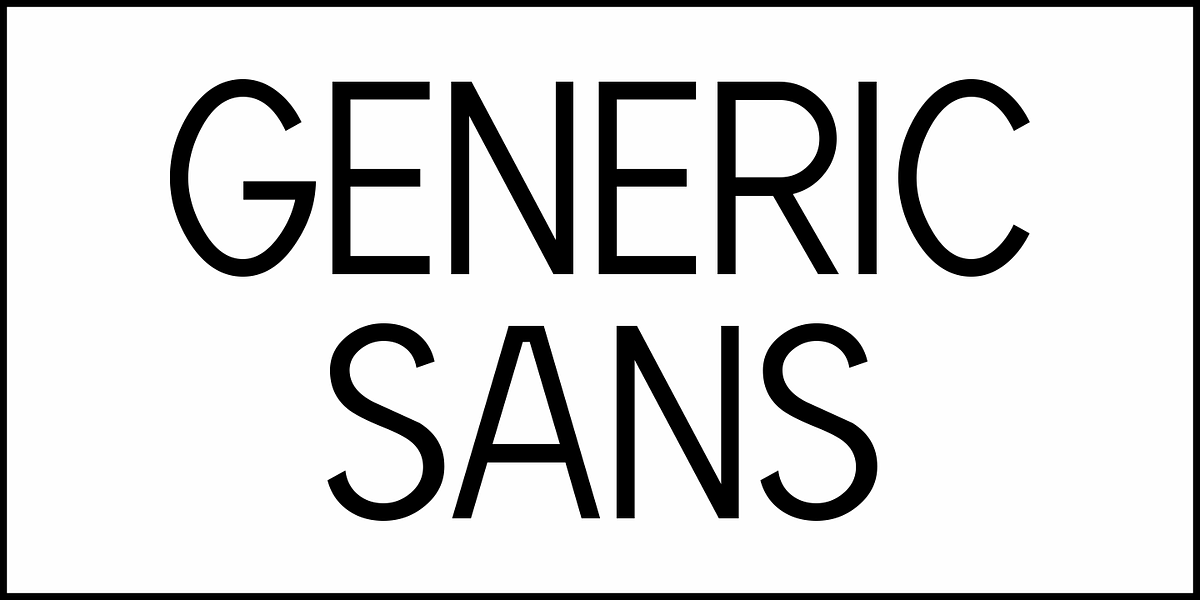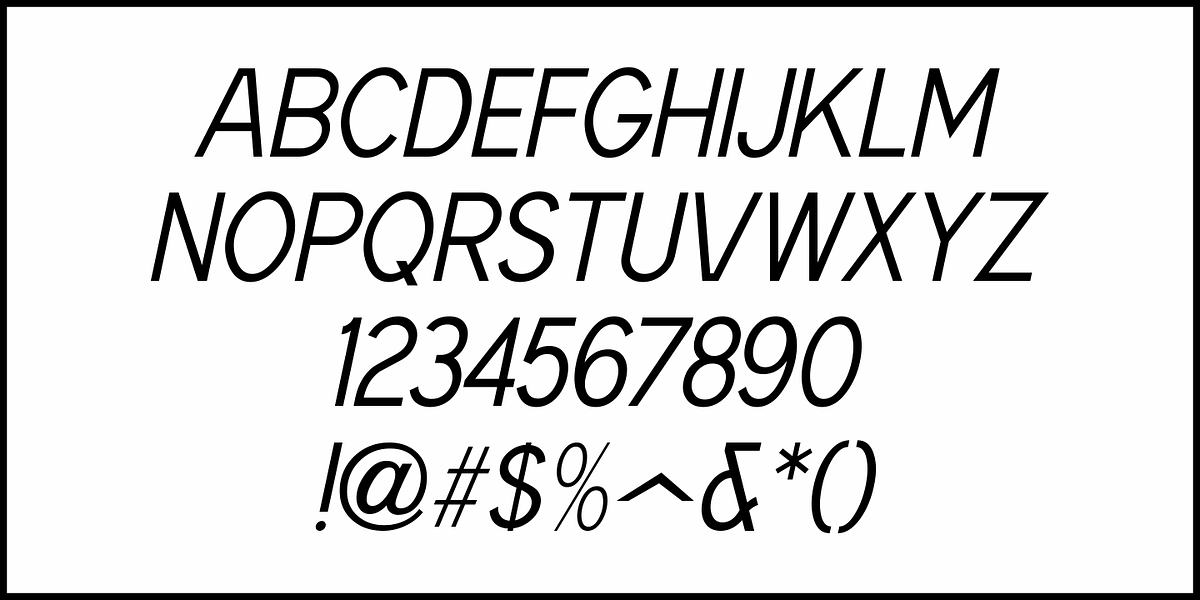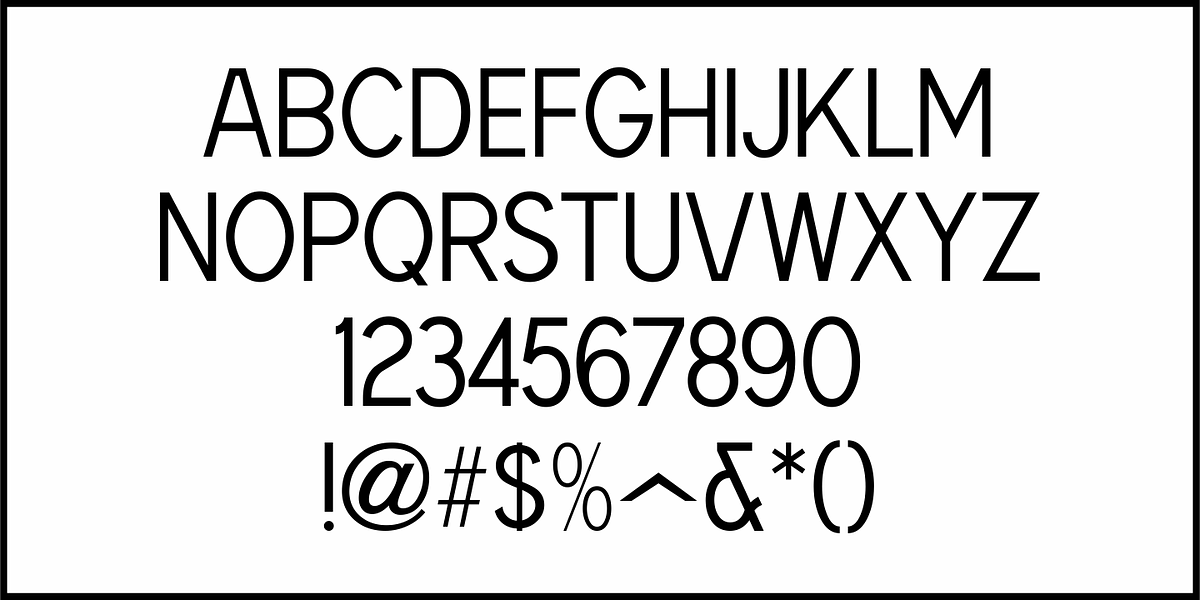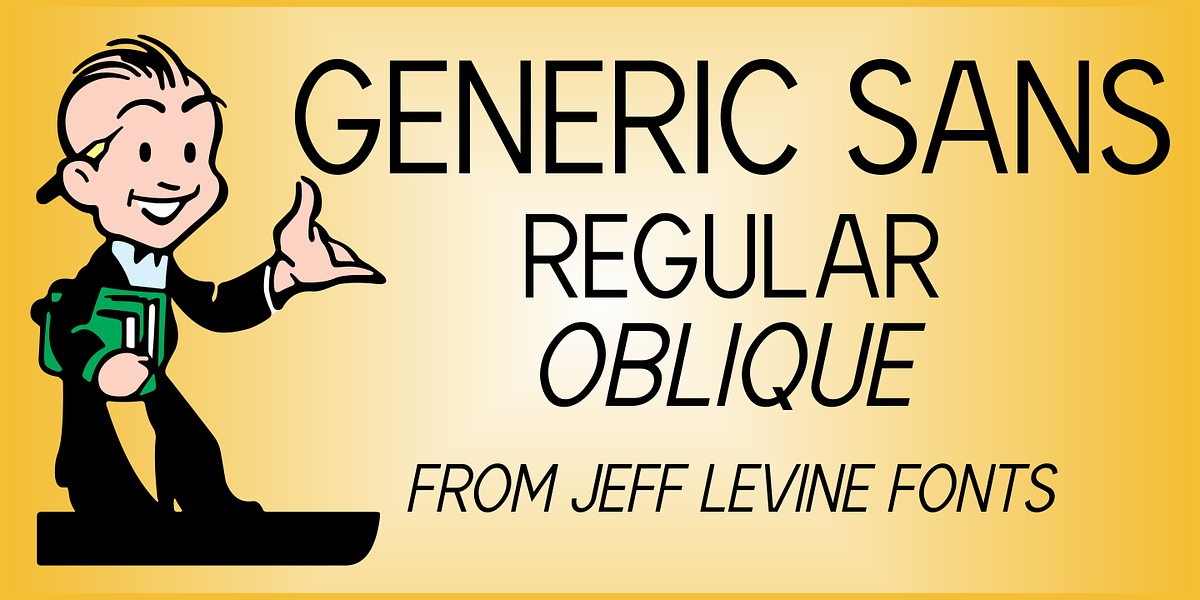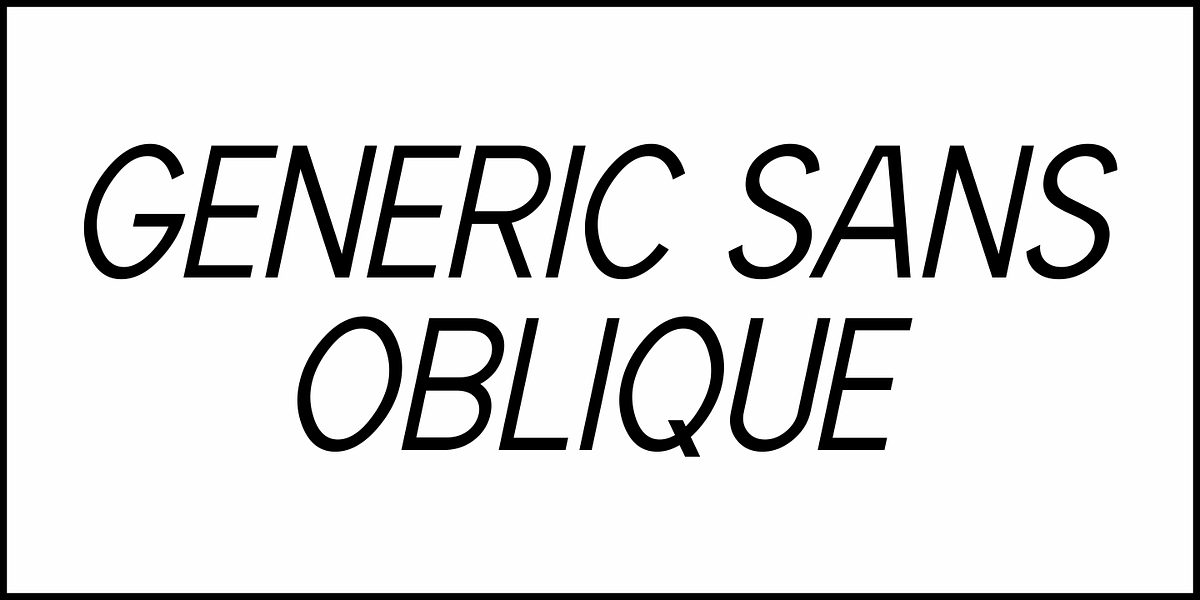
Generic Sans JNL
Generic Sans JNL was modeled after “Condensed Blair” from the 1907 specimen book of the Inland Type Foundry, and is available in both regular and oblique versions.